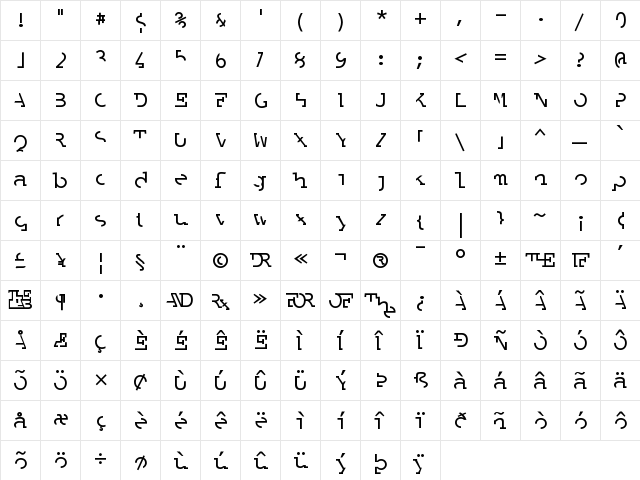
Labrat Regular
Design Context for Labrat Typeface
Labrat offers clean, dependable letterforms without strong stylistic allegiance, making it a practical choice for designers who need flexibility.